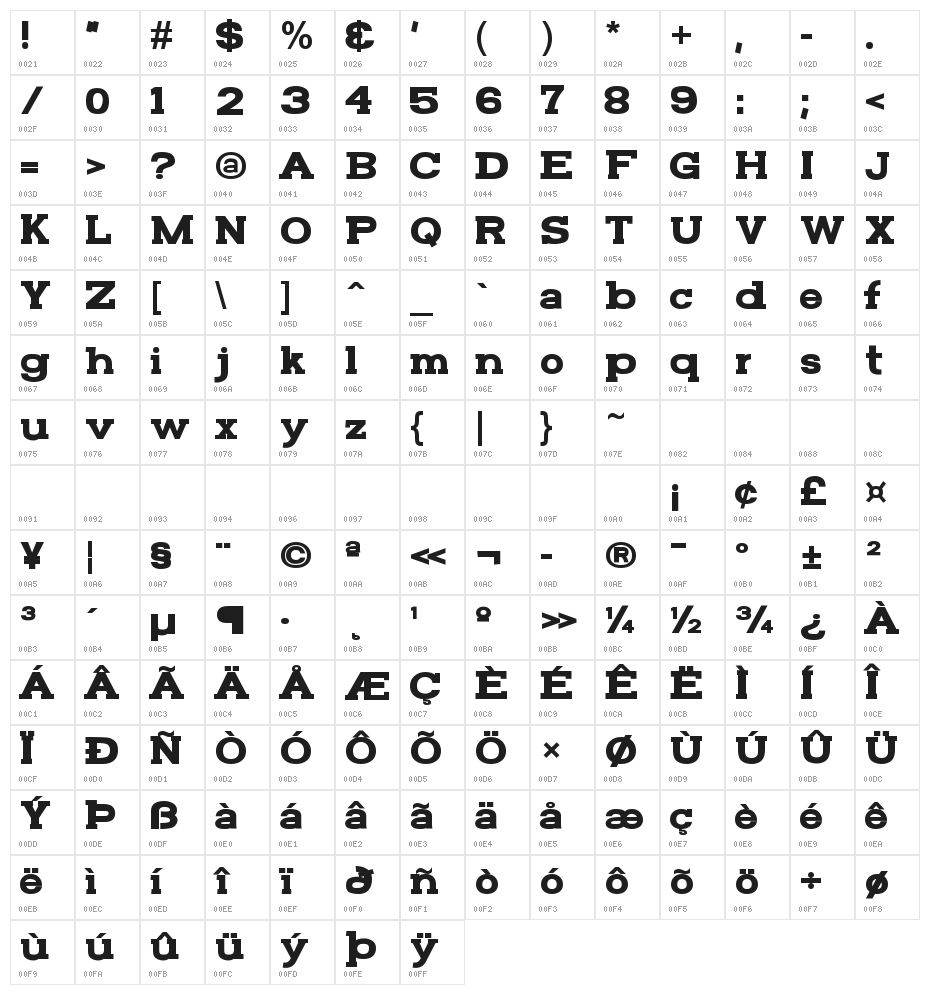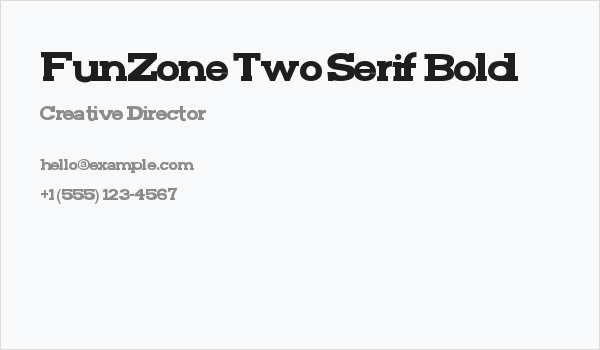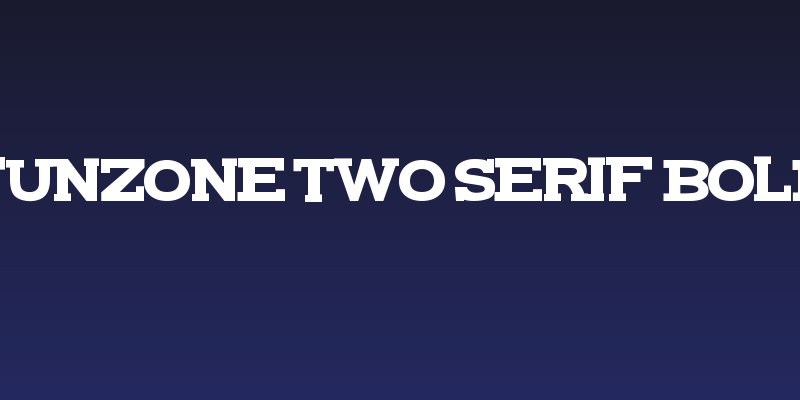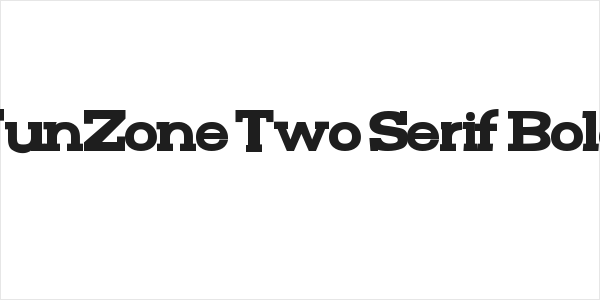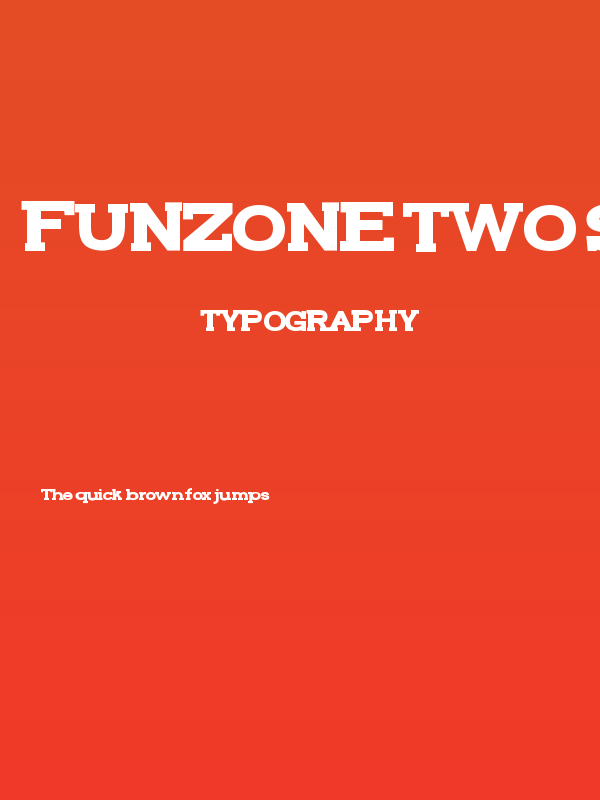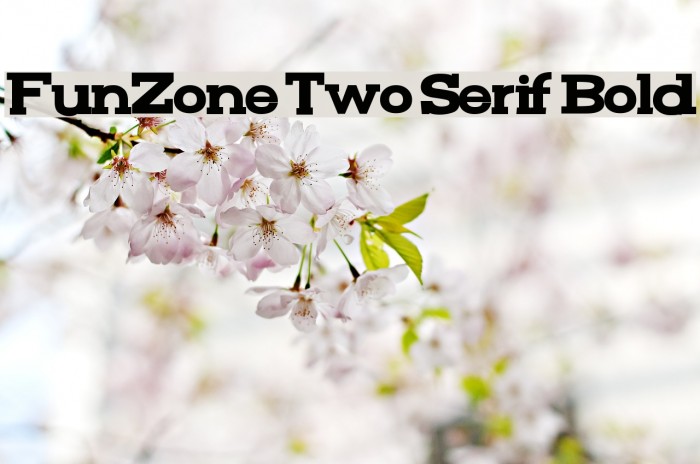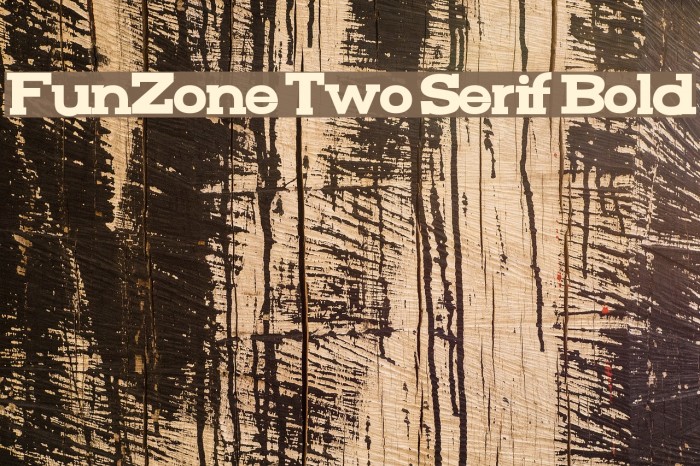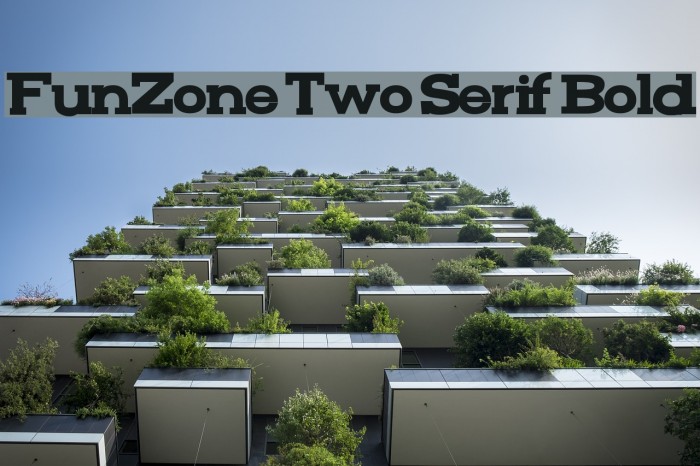
FunZone Two Serif Bold Font
FunZone Two Serif Bold Description
This font features a bold and robust serif style, characterized by thick strokes and prominent serifs that give it a strong and authoritative presence. The uppercase letters are uniformly wide, while the lowercase letters maintain a consistent height, ensuring readability and balance. The numerals are equally bold, matching the overall weight of the alphabet. Special characters are designed with the same boldness, making them stand out effectively. The font's design is both classic and modern, suitable for making a statement in any design project.
| Proposed Projects | Ideal for headlines, posters, branding, and any project requiring a strong visual impact. |